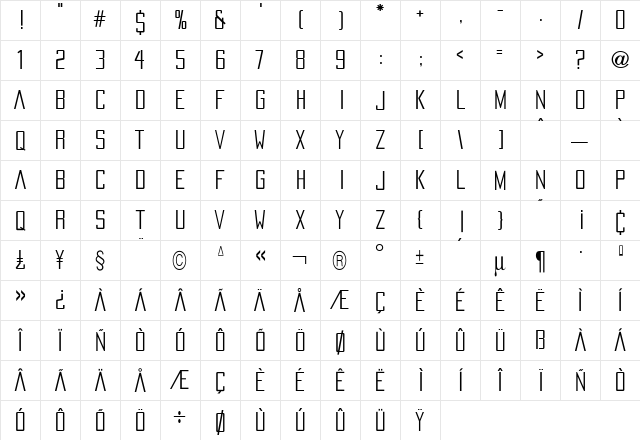
Pacifica Medium
Design Context for Pacifica Typeface
Pacifica is a composed and adaptable typeface that performs quietly and consistently across a wide range of design contexts.